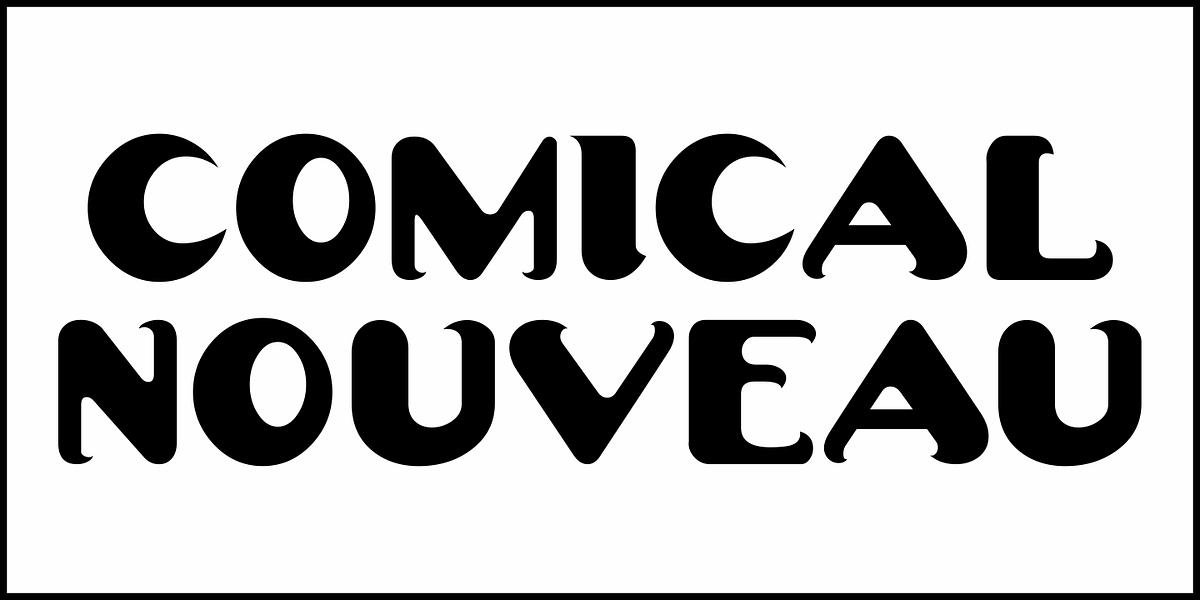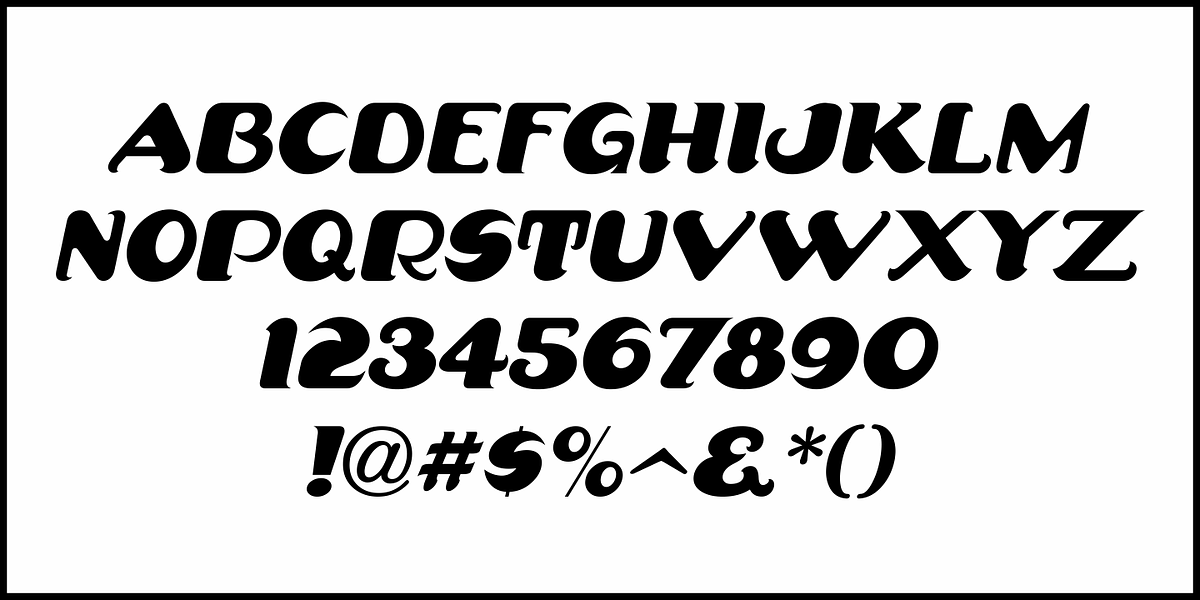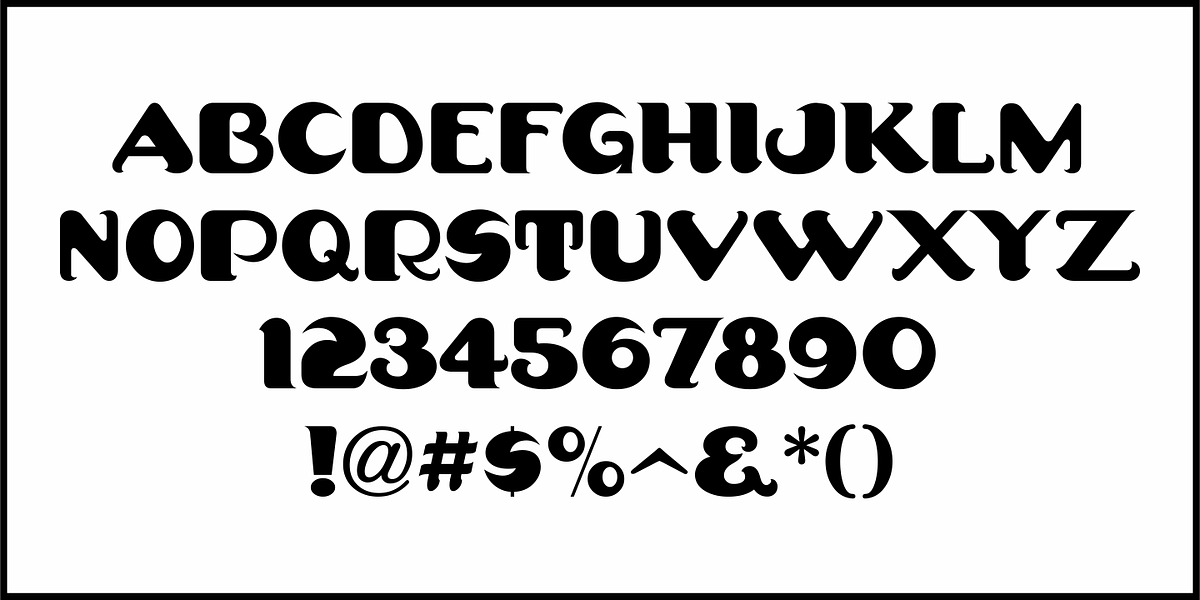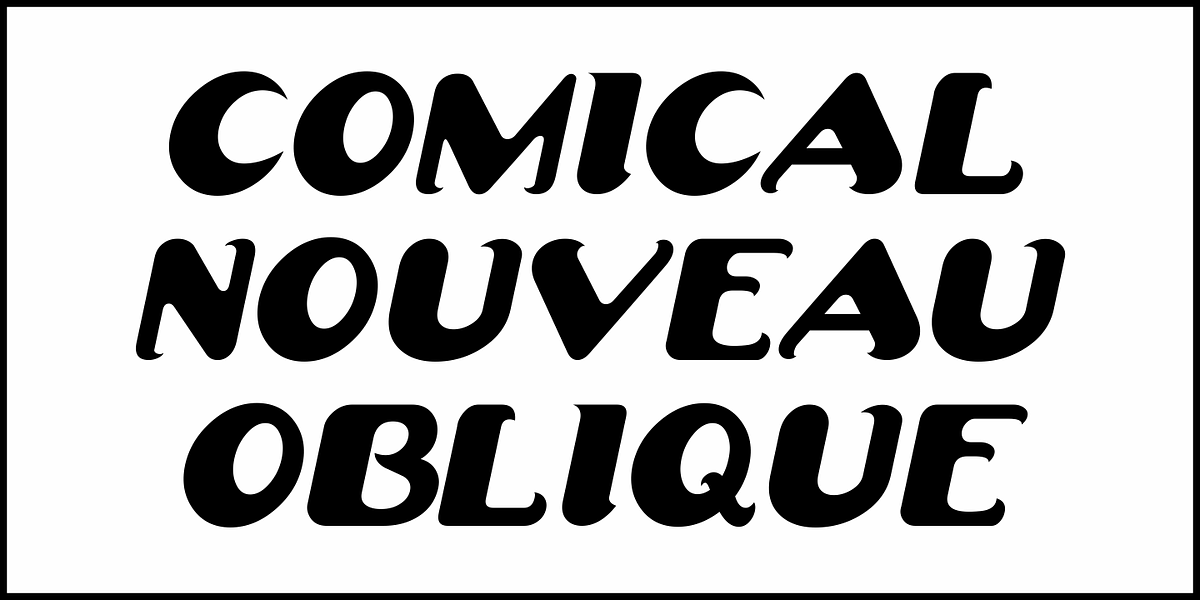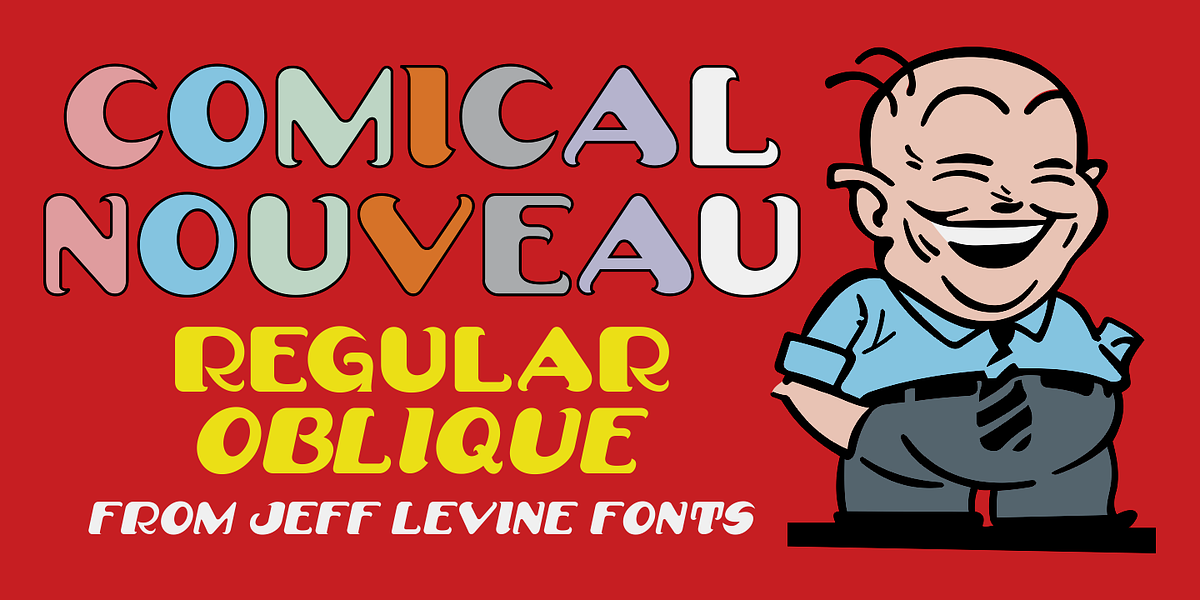
Comical Nouveau
An ad in the December 4, 1920 issue of Motion Picture News for International News [newsreels] featured some unusual hand lettering in a casual, eccentric Art Nouveau Style that was more playful than formal.
This has been redrawn digitally as Comical Nouveau JNL, and is available in both regular and oblique versions.